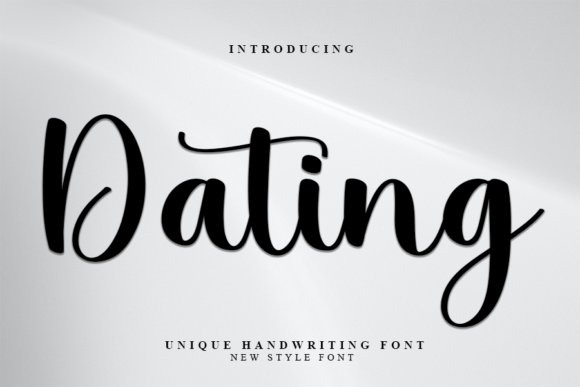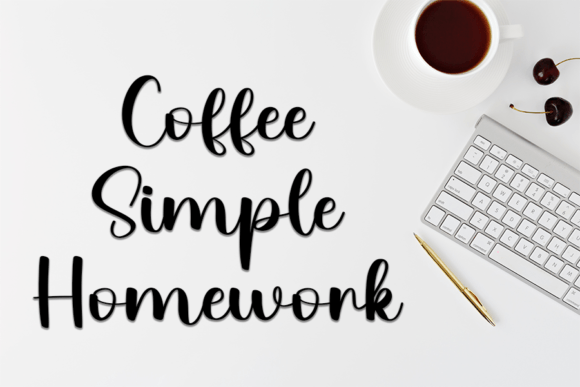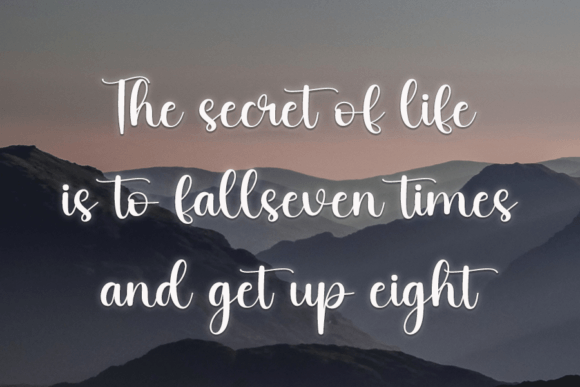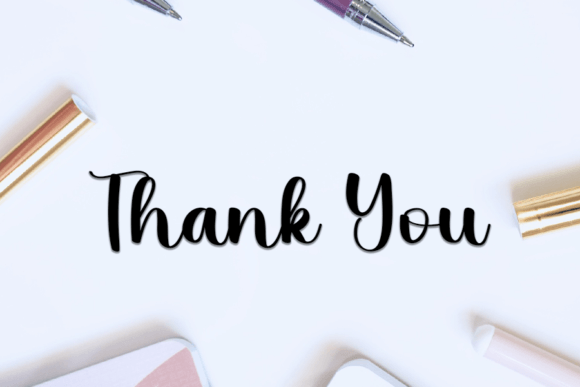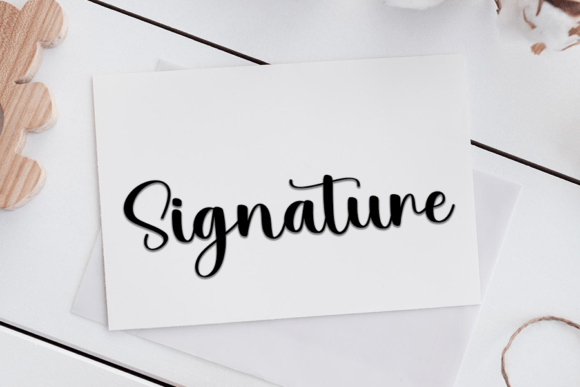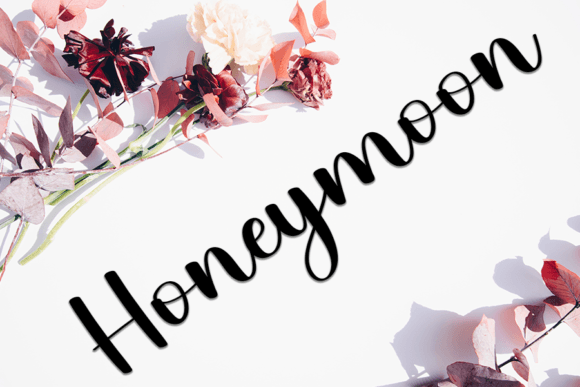
About Dating Font: Unique Script Typeface for Creative Projects
Dating font is a unique and beautiful script typeface designed to bring a personal and artistic touch to your creative projects. Whether you are crafting digital designs, presentations, or greeting cards, Datingfont offers a versatile and elegant style that can suit any occasion.
Versatile Script for Various Design Needs
This font stands out for its versatility. It works wonderfully for both casual and professional projects, adding a charming handwritten feel that enhances the visual appeal. Datingfont fits perfectly in contexts where creativity and uniqueness matter most.
Ideal for Greeting Cards and Invitations
When creating greeting cards or invitations, Datingfont adds a warm, heartfelt quality to your text. Its smooth strokes and graceful curves help convey emotion and style, making your messages more memorable and appealing.
Perfect for Digital and Print Design
Datingfont is crafted to perform well in both digital and print environments. Whether you’re designing social media graphics, branding materials, or printed stationery, its clean yet artistic appearance ensures your work stands out.
Key Features of Dating Font
Datingfont combines elegance with readability. The carefully crafted letterforms make it easy to use while delivering a sophisticated handwritten look. It pairs well with other fonts, allowing you to create balanced and stylish designs.
Tips for Using Dating Font
Use Datingfont to add a personal touch to logos, quotes, wedding materials, or any creative project requiring a delicate script. Its unique style enhances your designs, helping your work make a lasting impression.